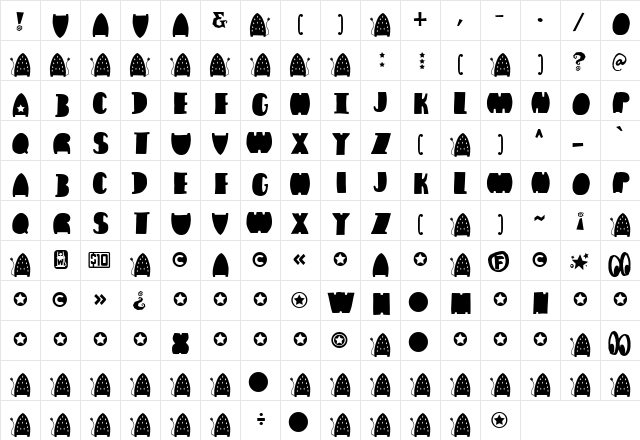
Irondale Regular
Design Context for Irondale Typeface
Irondale is a composed and adaptable typeface that performs quietly and consistently across a wide range of design contexts.